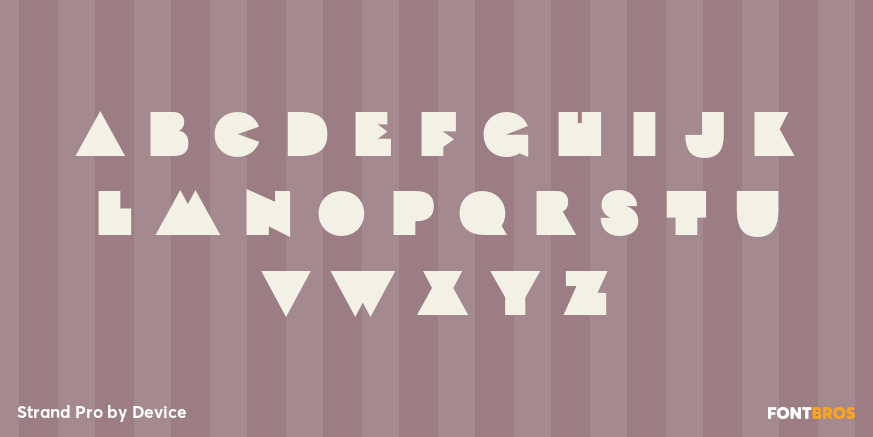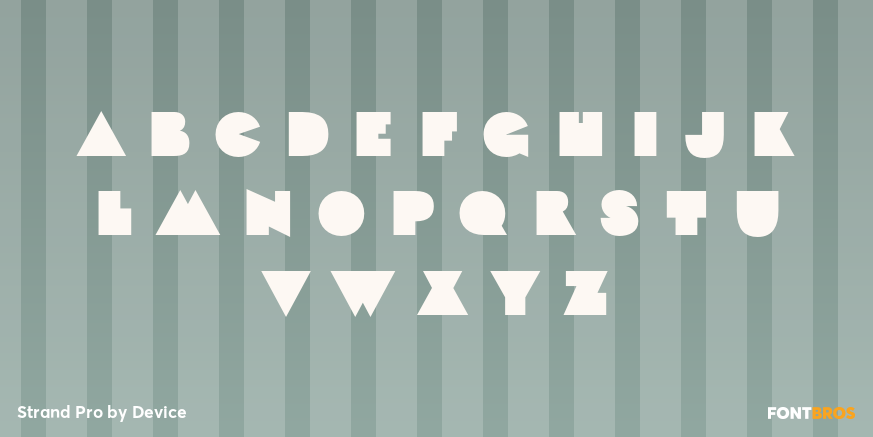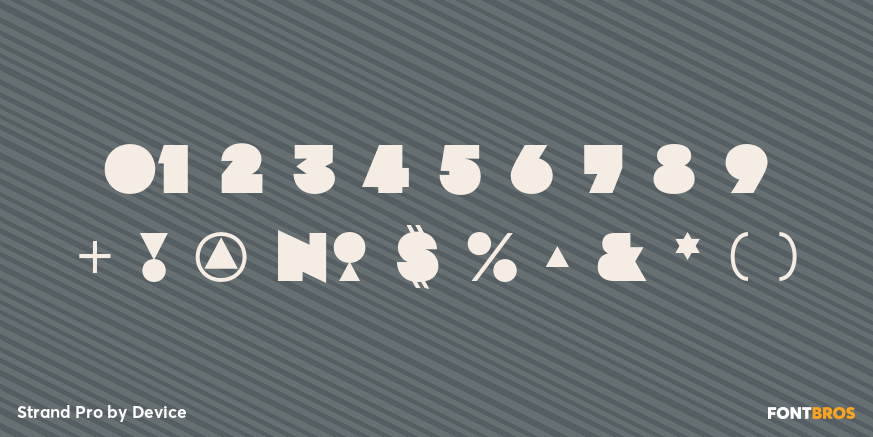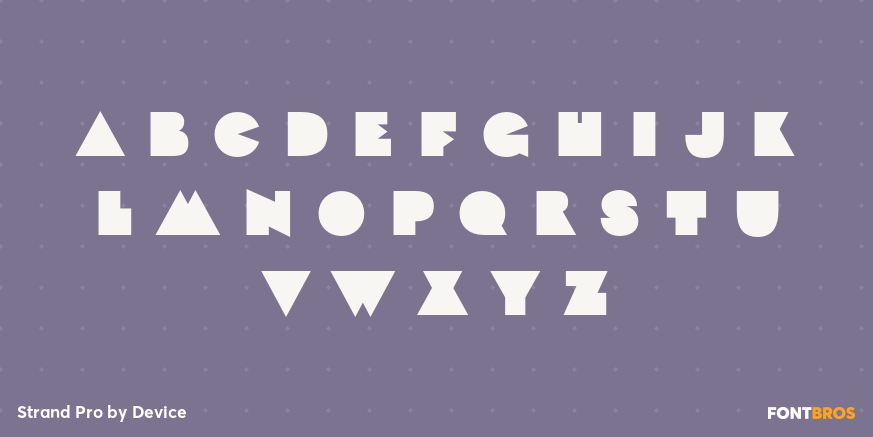
Strand Pro
Font Family by Device
Strand Pro is a five-style display family from Device with a distinctly Art Deco spirit and a playful, special-effect look. Its 1920s and 1930s references give it a glamorous vintage flavor, while the varied treatments across Twilight, Sunset, Stripe, Midnite, and Flash add extra personality and visual motion.
This is a strong choice for poster work, branding, packaging, titles, and other decorative display settings where you want lettering to do more than simply deliver the words. The mix of stylized finishes makes it especially appealing for projects that lean retro, theatrical, fun, or a little wacky without losing a polished, designed feel.